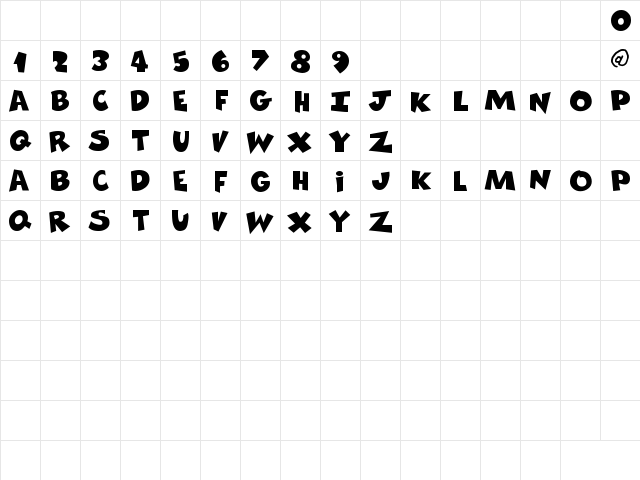
Smurfs Regular Regular
Design Context for Smurfs Regular Typeface
Smurfs Regular is a composed and adaptable typeface that performs quietly and consistently across a wide range of design contexts.